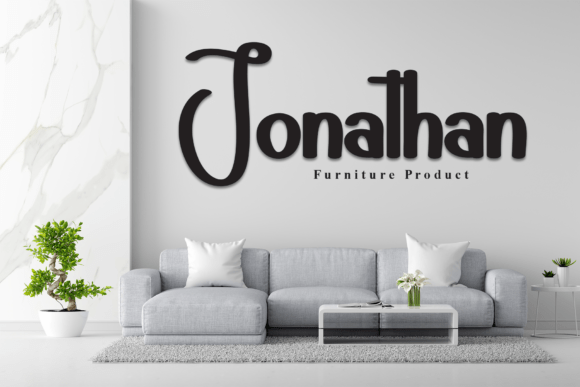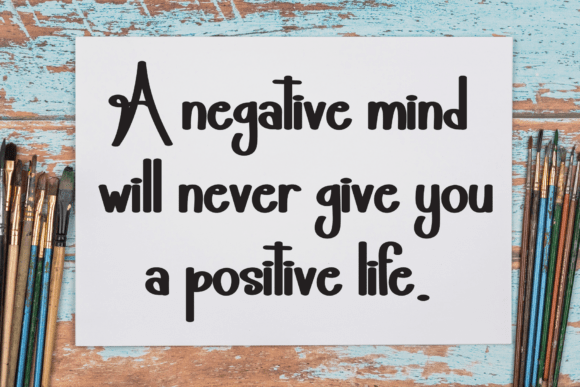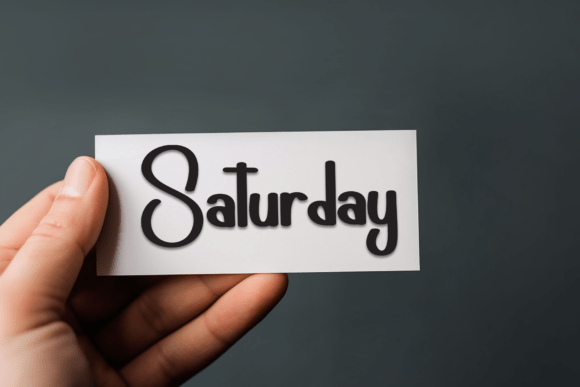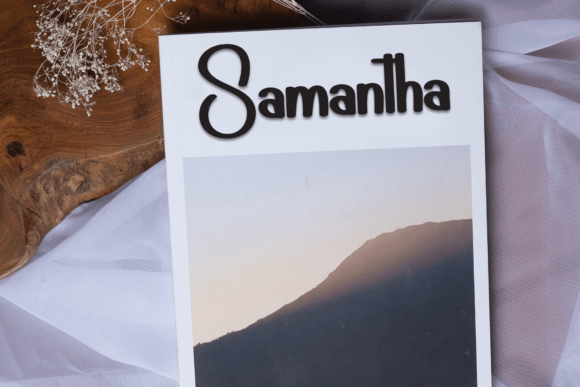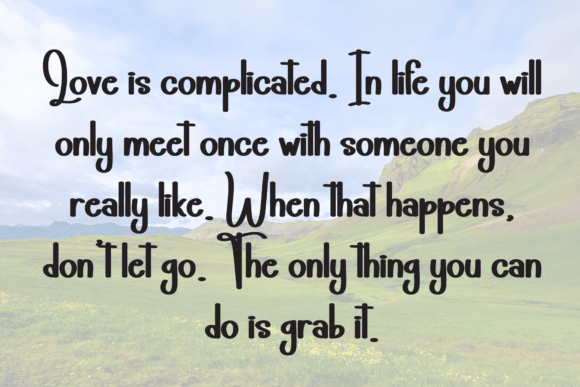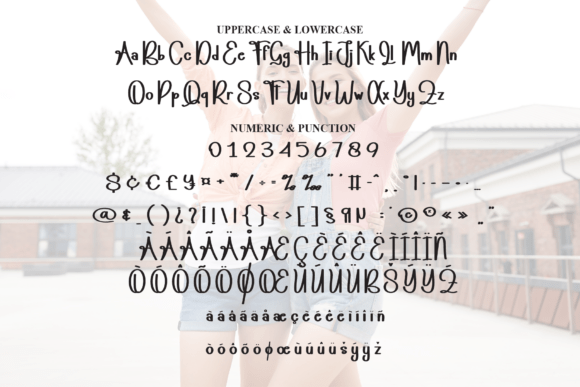
Introducing Bestie Font: Elevate Your Designs with Elegance and Modern Charm
In the world of typography, few fonts manage to strike a balance between elegance, modernity, and versatility. Bestie Font is one such exceptional typeface that has captured the hearts of designers and crafters alike. This stylish script font is not just a collection of letters; it’s a statement piece that can elevate any design project with its fluid strokes, graceful curves, and meticulously balanced letterforms.
The Essence of Bestie Font
Bestie Font embodies the perfect fusion of traditional calligraphy and contemporary design. Its fluid strokes and graceful curves give it a dynamic, hand-drawn feel that is both sophisticated and approachable. Each letterform has been carefully crafted to ensure balance and harmony, making it a joy to use in various design applications. Whether you’re working on a logo, invitation, packaging, or social media graphics, Bestie Font adds a touch of elegance and personality that sets your work apart.
Key Features of Bestie Font
- Fluid Strokes and Graceful Curves: Bestie Font boasts smooth, flowing strokes that give it a natural, hand-crafted feel. The graceful curves add a level of sophistication, making it ideal for designs that require a touch of elegance.
- Carefully Balanced Letterforms: The meticulous attention to detail in Bestie Font ensures that each letterform is not only aesthetically pleasing but also highly legible. This balance of form and function makes it versatile for a wide range of design projects.
- Contemporary Edge: While Bestie Font draws inspiration from traditional calligraphy, it also has a distinctly modern edge. This blend of old and new makes it perfect for designers looking to create fresh, yet timeless, designs.
- Versatility: One of the standout features of Bestie Font is its versatility. It can be used in various design applications, from logos and branding to invitations, packaging, and social media graphics.
Applications of Bestie Font
The versatility of Bestie Font makes it suitable for a myriad of design projects. Here are some of the ideal applications:
- Logos and Branding: Bestie Font’s elegant and modern charm makes it an excellent choice for logos and branding. It can help create a memorable and sophisticated brand identity.
- Invitations: Whether it’s a wedding invitation, birthday party, or corporate event, Bestie Font can add a touch of class and personality to your invites.
- Packaging: For product packaging, Bestie Font offers a stylish and contemporary look that can make your product stand out on the shelves.
- Social Media Graphics: Enhance your social media presence with graphics that incorporate Bestie Font. It’s perfect for creating engaging and visually appealing posts.
Why Choose Bestie Font?
With so many fonts available, why should Bestie Font be your go-to choice? Here are a few compelling reasons:
- Unique Aesthetic: Bestie Font offers a unique blend of elegance and modernity that is hard to find in other typefaces.
- High Versatility: Its adaptability across various design applications makes it a valuable addition to any designer’s toolkit.
- Attention to Detail: The careful crafting of each letterform ensures a high level of legibility and aesthetic appeal.
- Easy to Use: Bestie Font is designed to be user-friendly, making it easy to incorporate into your design workflow.
Bestie Font is more than just a typeface; it’s a design statement. With its fluid strokes, graceful curves, and carefully balanced letterforms, it brings a touch of elegance and modern charm to any design project. Whether you’re a professional designer or a crafting enthusiast, Bestie Font offers the versatility and aesthetic appeal needed to elevate your work. By choosing Bestie Font, you’re not just selecting a font; you’re embracing a design philosophy that combines the best of traditional calligraphy with the edge of modern typography.